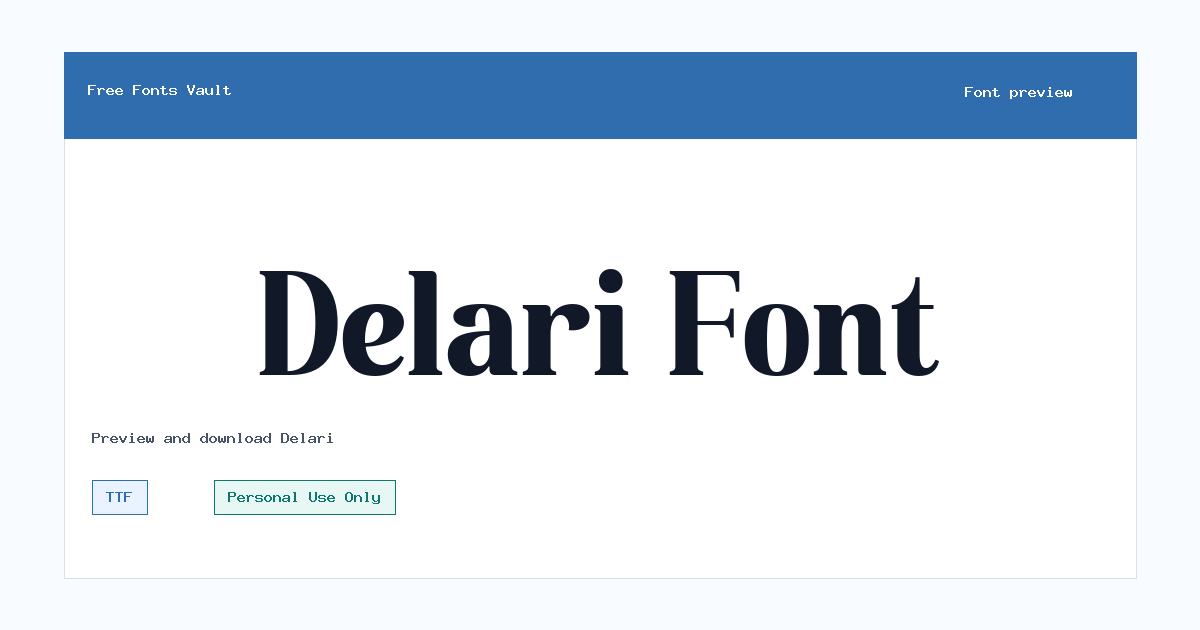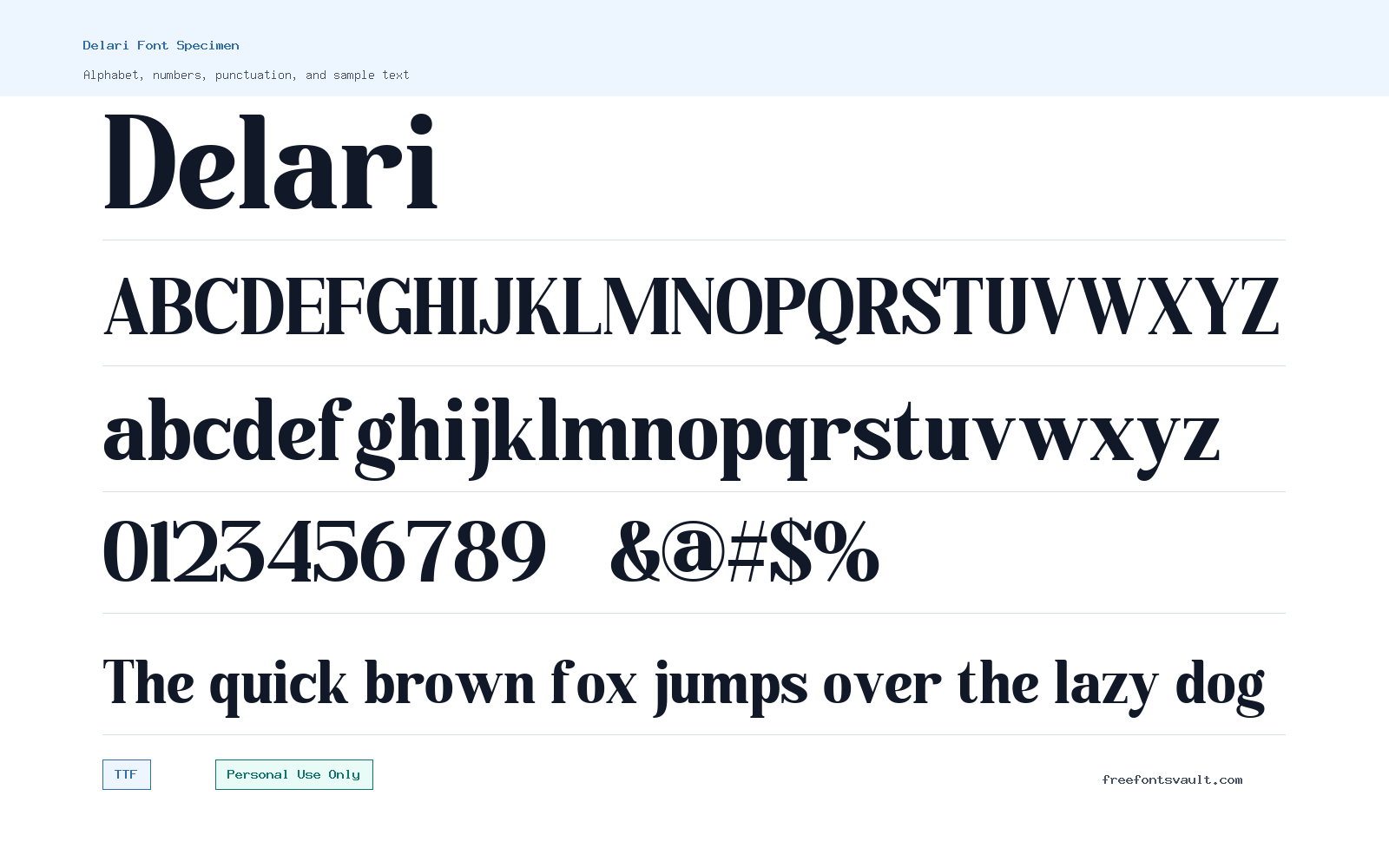
Delari
• Designer Pikgura
Delari is presented as a serif typeface, which makes it a good candidate for visitors who want letterforms with a more formal or editorial feel than a plain sans serif. Since the download contains a regular 400 weight, it is most useful when you need a clean single-style font rather than a large family with many weights. Try it first in the preview tool with words that match your project, especially names, titles, short headings, and a few lines of paragraph text.
For practical use, Delari is easiest to evaluate in short text settings where the shape of the letters can be seen clearly. Test it at larger sizes for titles, invitations, quote graphics, social posts, stationery mockups, and personal branding drafts. If you plan to use it for longer reading text, check spacing, punctuation, numbers, and mixed-case words before committing. Pair it with a simple sans serif when you want contrast, and avoid using too many decorative or high-contrast fonts in the same layout.
• Regular 400 style for straightforward typography and layout testing
• Personal title designs, invitations, quote graphics, and social media mockups
Who designed Delari?
Delari is credited to Pikgura.
What is Delari best used for?
It is best tested for personal-use headings, invitations, quote images, stationery drafts, and other short text layouts where a serif style fits the design.
Should I use Delari for long paragraphs?
You can test it for body text, but check readability at smaller sizes first. The available files list only a regular weight, so layout flexibility may be limited.